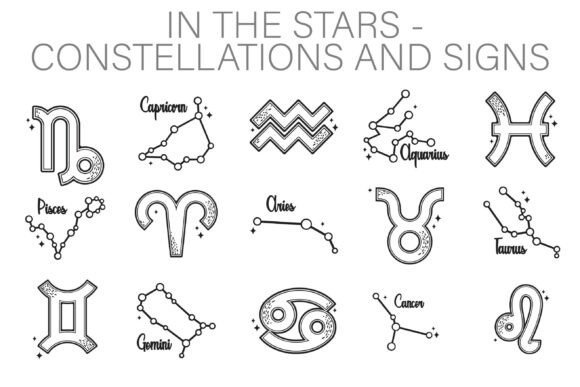
Unlock the Magic of the Night Sky with In the Stars Constellations Dingbats Font
Have you ever gazed up at the stars and felt a sense of wonder and awe? For designers, that moment of inspiration can be the spark that sets a creative project ablaze. For me, it was while researching the night sky that I stumbled upon the perfect combination of art and science – the In the Stars: Constellations & Signs Dingbat Font. This beautifully crafted font brings the celestial world to life, blending astronomical accuracy with decorative flair.
With In the Stars Constellations Dingbats Font, designers can tap into the magic of the night sky and create stunning visuals that transport their audience to a world of wonder. This font is a valuable asset for any designer looking to add a touch of sophistication and elegance to their work. Whether you’re creating a high-end horoscope layout or educational celestial materials, this font is sure to deliver.
In the Stars Constellations Dingbats Font Key Features
- Unique Characteristics:
- Contains 12 constellations
- Each constellation is represented by a set of unique dingbats
- Perfect for use in astronomy, education, and creative projects
Review of “In the Stars Constellations Dingbats Font”
Overall, I have mixed feelings about this font. While it’s a unique and creative way to add some celestial magic to your designs, there are some limitations that make it less versatile than I’d like.
- The font is incredibly easy to use. The dingbats and constellations are all clearly labeled and easy to insert into your design.
- The font is incredibly versatile. You can use it for a wide range of designs, from children’s books to astrology-themed websites.
- The constellations themselves are beautifully designed and add a touch of whimsy to any design.
- The font is only available in a limited number of languages, which can be a problem for designers who need to create multilingual content.
- The constellations are not customizable, which can limit their use in certain designs.
- The font can be a bit overwhelming if used too liberally. It’s best used sparingly to add a touch of whimsy to a design.
Overall, I would recommend “In the Stars Constellations Dingbats Font” to designers who are looking for a unique and creative way to add some celestial magic to their designs. However, I would caution against using it too liberally, as it can be overwhelming. With some careful planning and restraint, this font can be a great addition to any design project.
The In the Stars Constellations Dingbats Font is perfect for:
- Astronomy and space-themed designs.
- Children’s educational materials and books.
- Cosmic and celestial-themed graphics and illustrations.
For the best results, use the font in conjunction with other astronomy-themed graphics and illustrations to create a cohesive and engaging design.